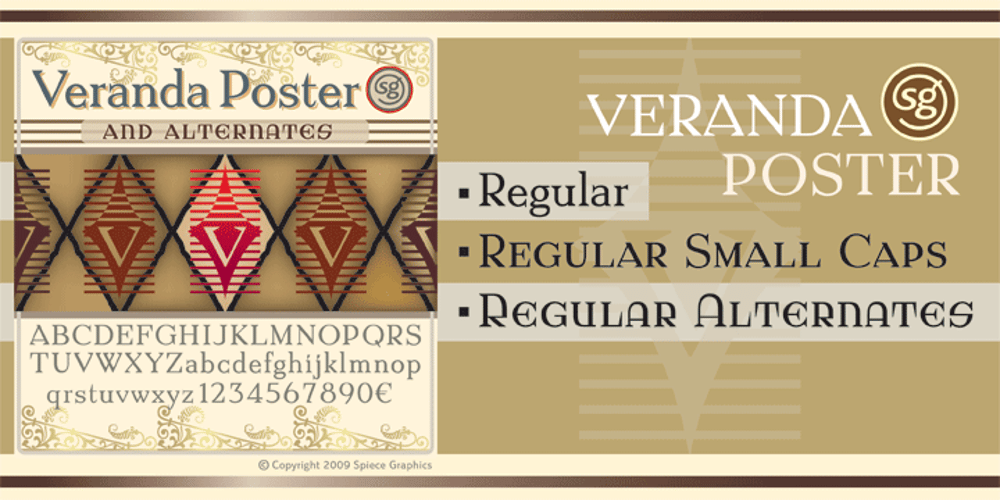
Veranda Poster SG
Veranda Poster SG font
Veranda Poster SG Font Family was designed by Jim Spiece, Julius Klinger, Willy Willrab and published by Spiece Graphics. Veranda Poster SG contains 3 styles and family package options. Veranda Poster was derived from a European art supply manufacturer’s logotype done in the Vienna (Wien) Austria style. This distinctive classic style was used by artists such as Julius Klinger and Willy Willrab in the 1920s. Two new faces have been added to the original version – Veranda Poster Small Caps and Veranda Poster Alternates. Here is an extensive collection of capital and small cap alternates plus a wide selection of figures for almost any use. The contemporary alternate additions have a slightly Russian flavor. The combination of all three styles makes for striking logo and display settings. All three styles are now available in the OpenType Std format. Some additional characters have been added to this OpenType version as stylistic alternates. This advanced feature works in current versions of Adobe Creative Suite InDesign, Creative Suite Illustrator, and Quark XPress. Check for OpenType advanced feature support in other applications as it gradually becomes available with upgrades.